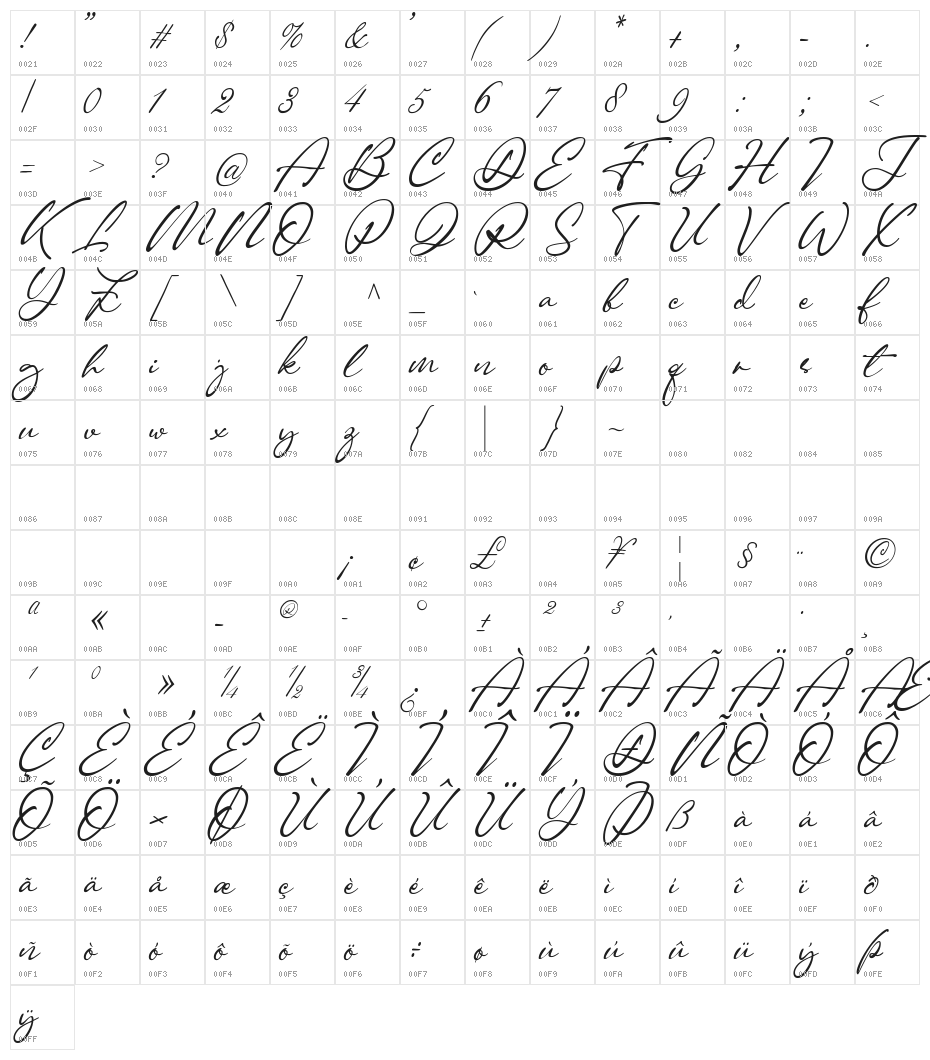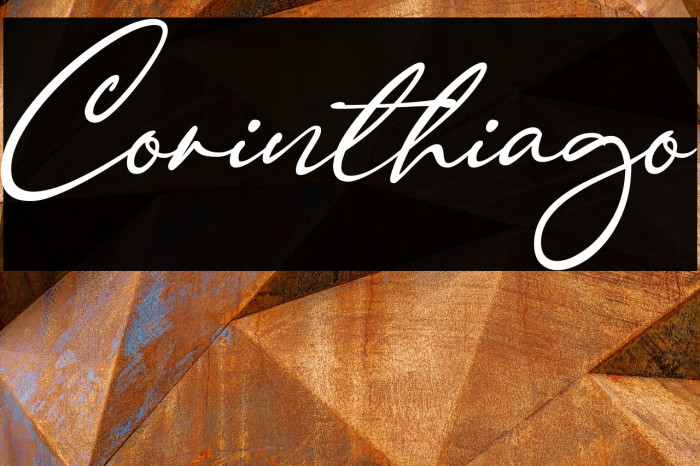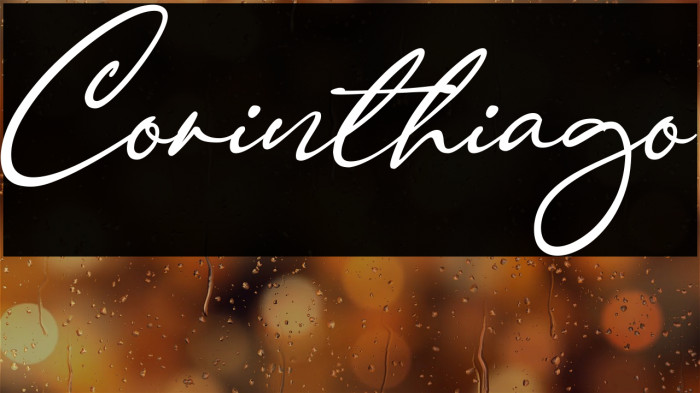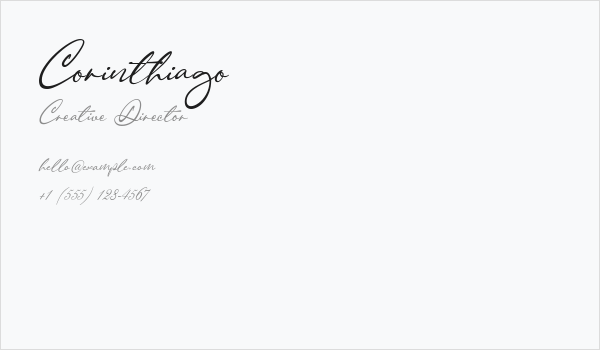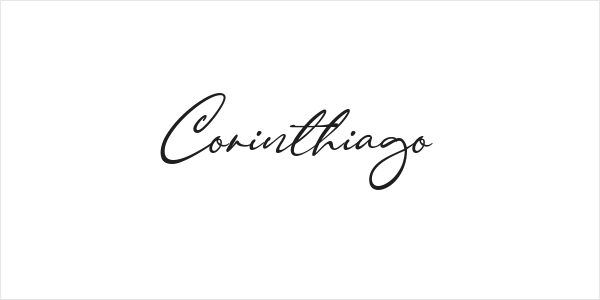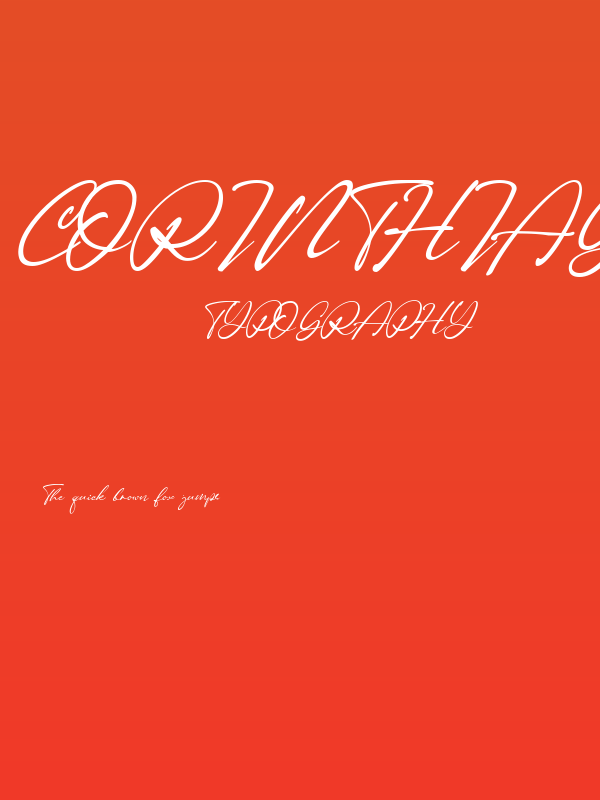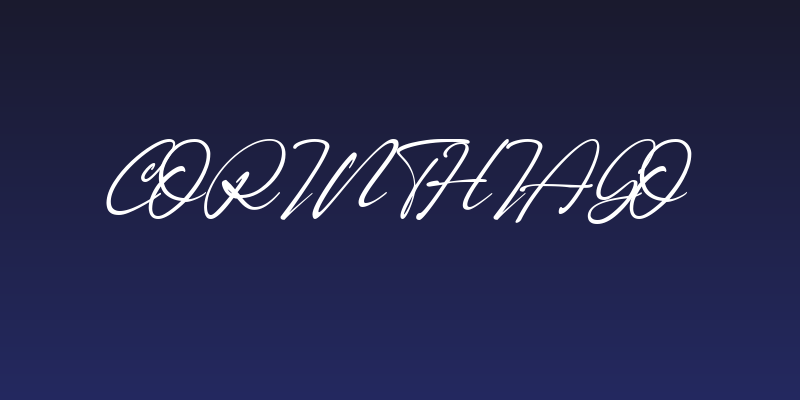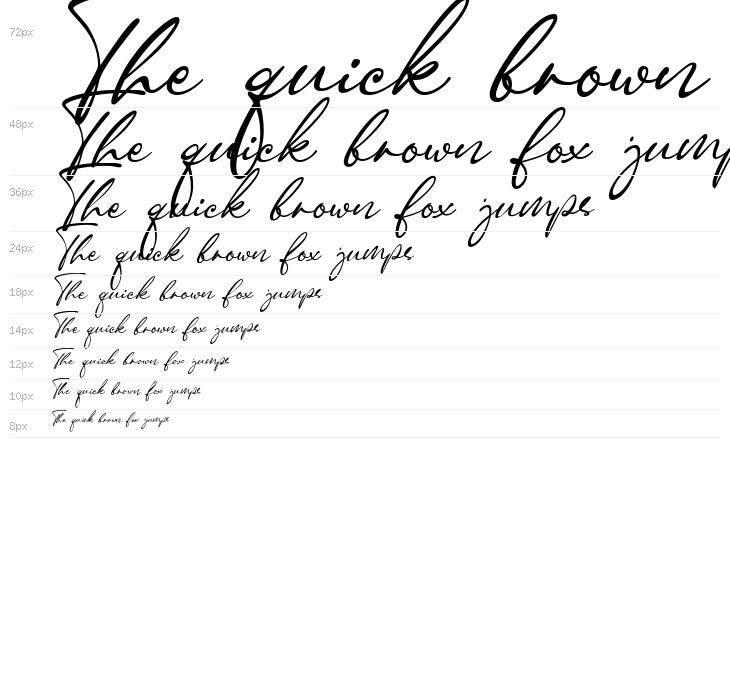
Corinthiago Font
Corinthiago Description
This elegant script font features a flowing, cursive style with a sophisticated flair. The characters are intricately connected, creating a seamless and fluid appearance. The uppercase letters are tall and graceful, while the lowercase letters maintain a consistent rhythm with delicate loops and swashes. The numerals are stylishly integrated, maintaining the font's overall elegance. Special characters are thoughtfully designed to complement the script's aesthetic. This font exudes a sense of luxury and refinement, making it ideal for formal invitations, branding, and decorative purposes.
| Overall Style | Elegant, Decorative |
| Use Case | Logos, Invitations, Decorative text |
| Proposed Projects | Ideal for wedding invitations, luxury branding, elegant stationery, and decorative signage. |